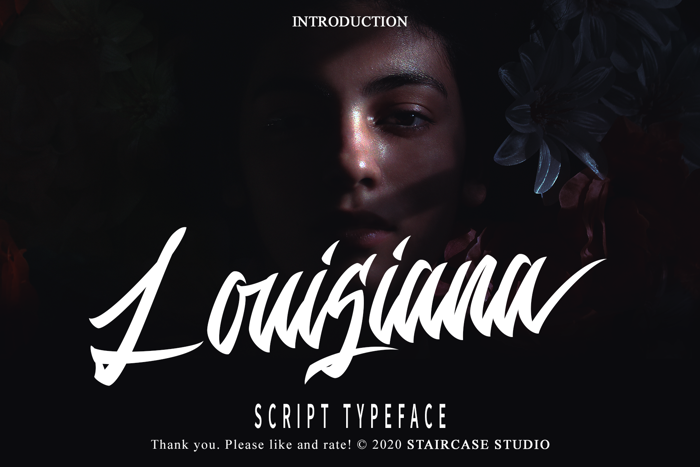
Louisiana Font
Louisiana Script Typeface. A collection of letters and numbers suitable your projects also great for Logotype, Branding Design, Logo Design, Digital Lettering Arts, T-Shirt/Apparel, Poster, Magazine, Signs, Advertising Design, and any design needs.